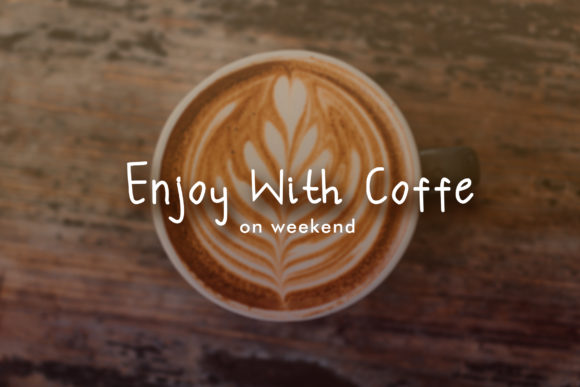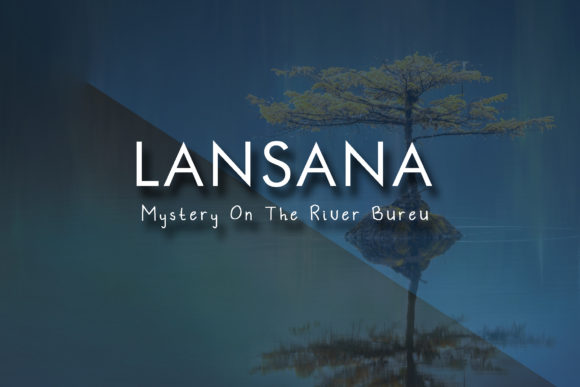
Hand Baby Font
About Hand Baby Font
Handbabyfont is a cute and sweet handwritten font with a simple feel. Use it to add a casual style to any design project!